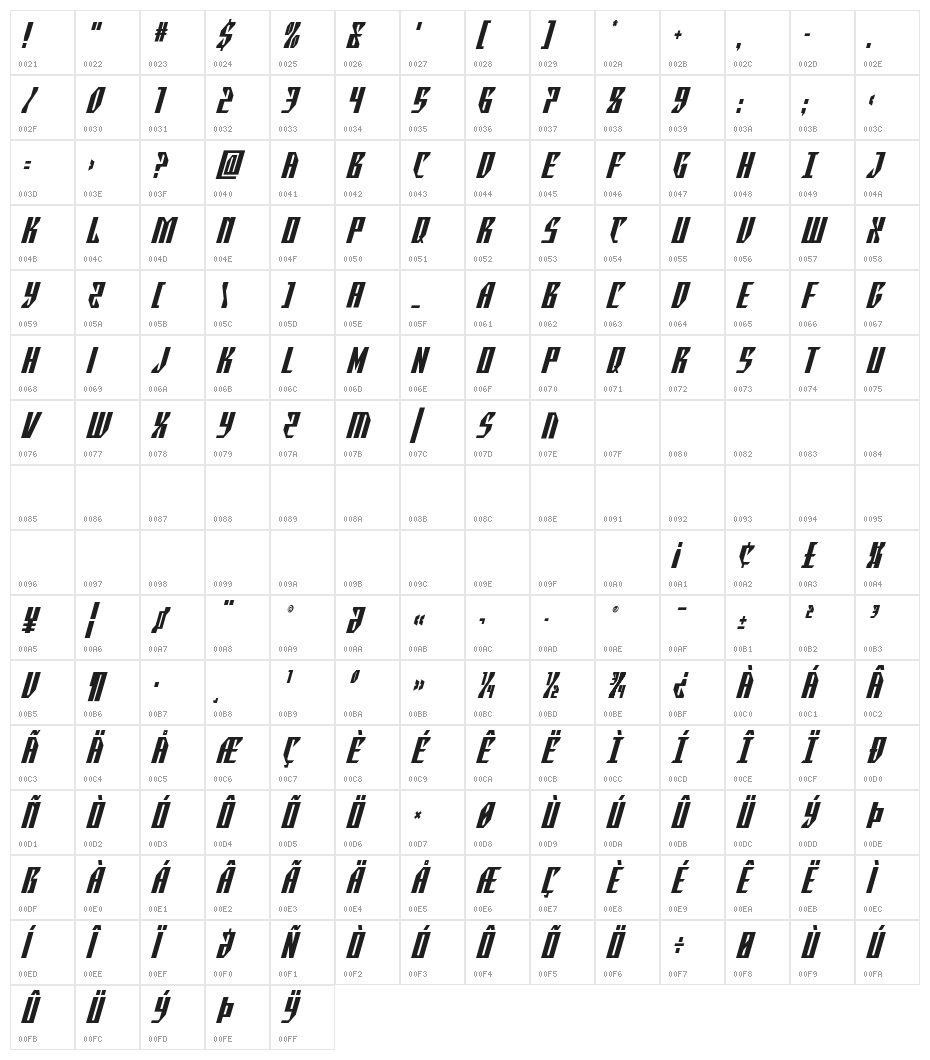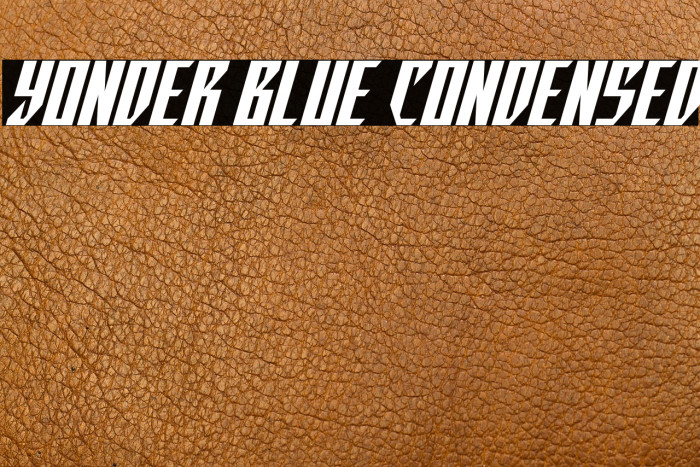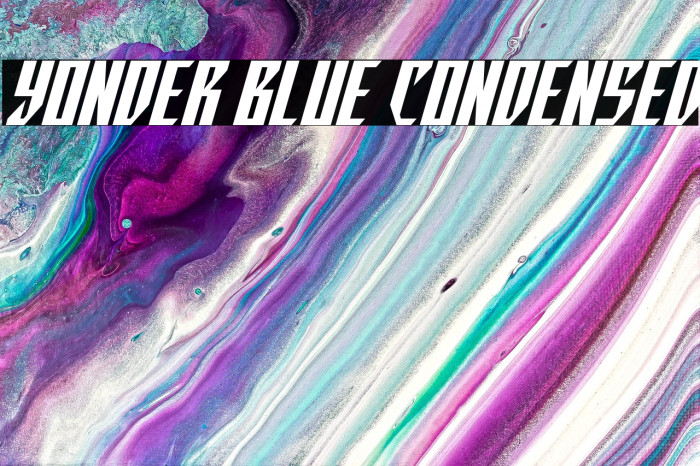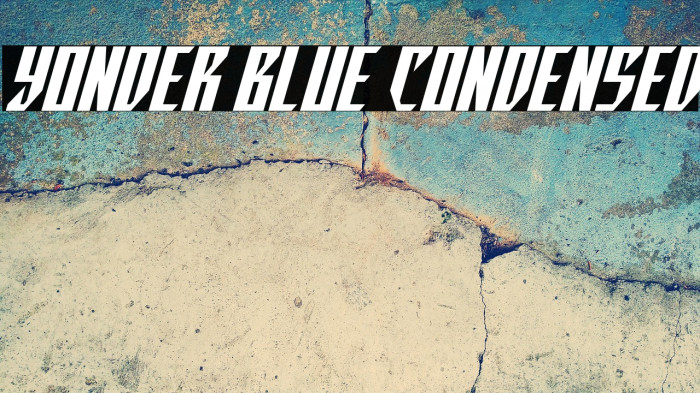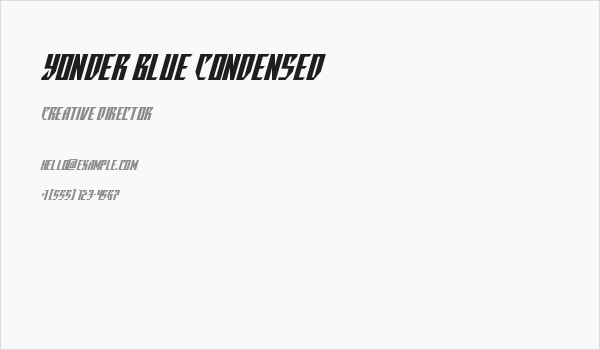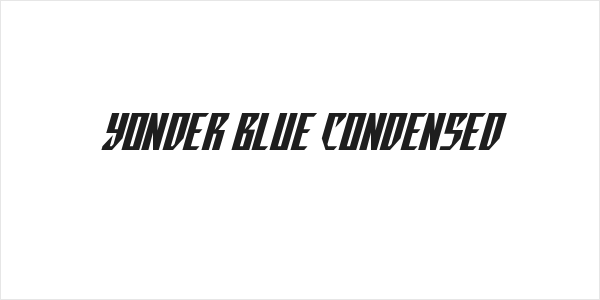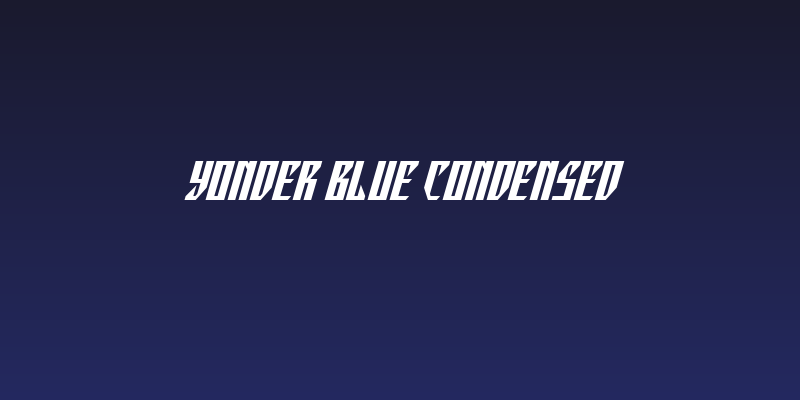
Yonder Blue Condensed Font
Yonder Blue Condensed Description
This font features a bold and dynamic style with sharp, angular edges and a condensed form. The characters are tightly spaced, creating a sense of urgency and movement. The uppercase letters are particularly striking, with a futuristic and edgy appearance. The numbers and special characters maintain this bold aesthetic, making the font suitable for attention-grabbing designs. Its unique style is both modern and slightly aggressive, perfect for projects that require a strong visual impact.
| Proposed Projects | Ideal for sports branding, music album covers, posters, and any design needing a bold statement. |